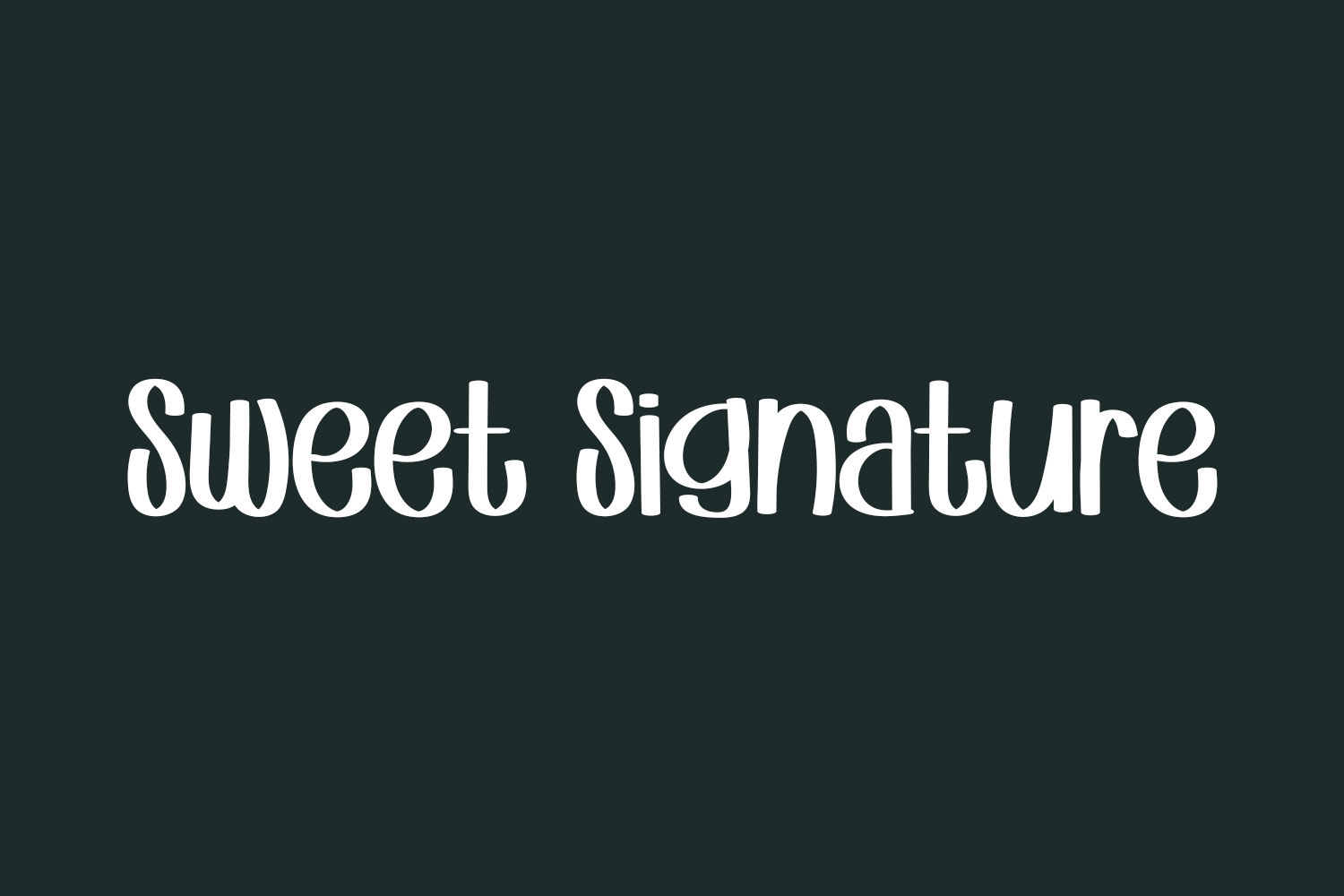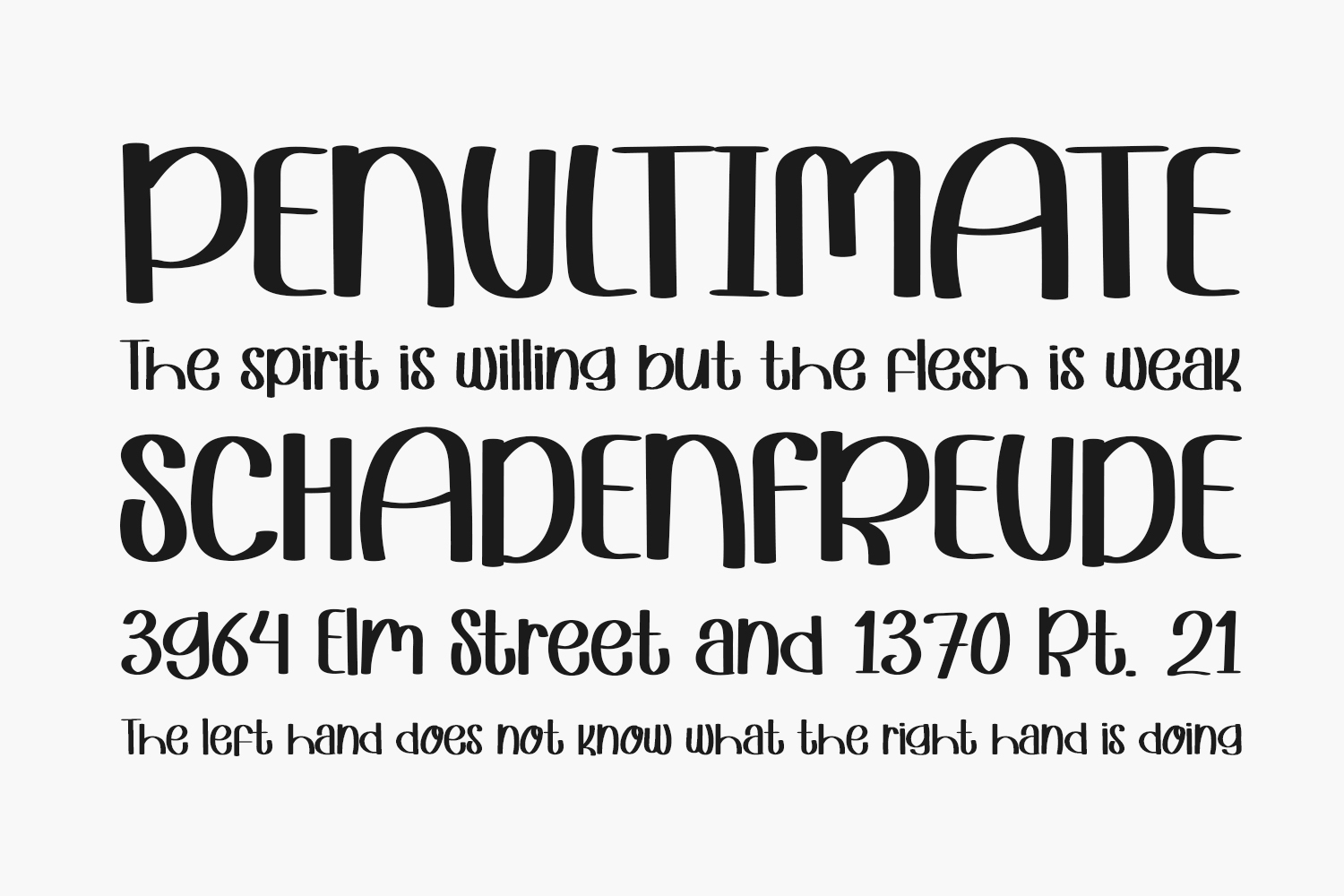
Sweet Signature Free Font is an enchanting and playful handwritten font that adds a touch of beauty to any project. This font is thoughtfully crafted to perfectly complement a variety of creative endeavors, including clothing designs, apparel, mockups, logos, banners, and various crafts. Let Sweet Signature be the delightful finishing touch that brings your designs to life with its whimsical charm and captivating appeal. Sweet Signature Free Font is free for personal use only. Please purchase the full version for commercial use.